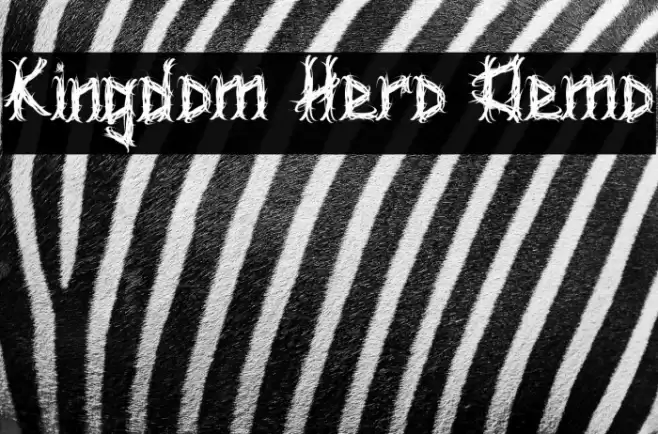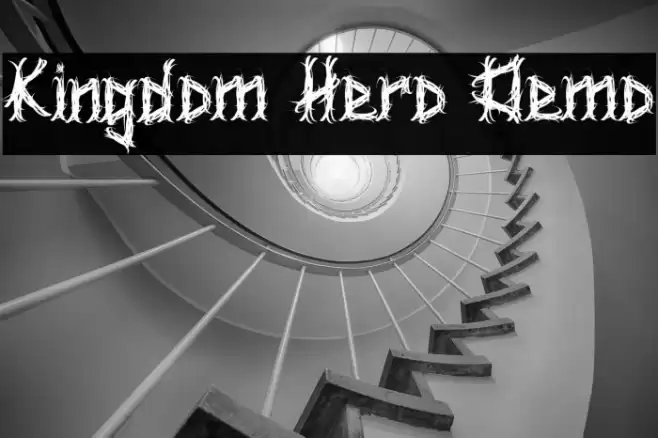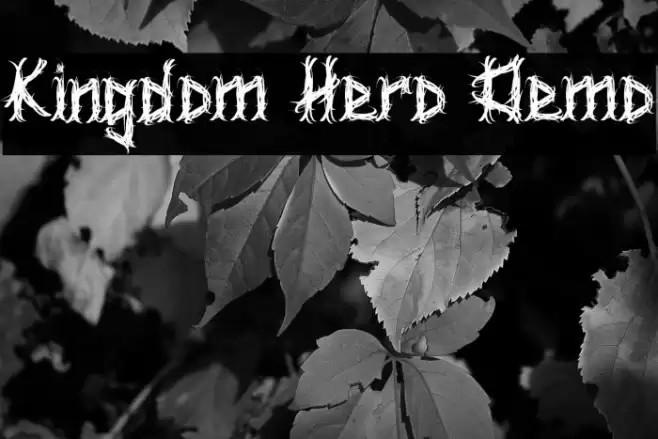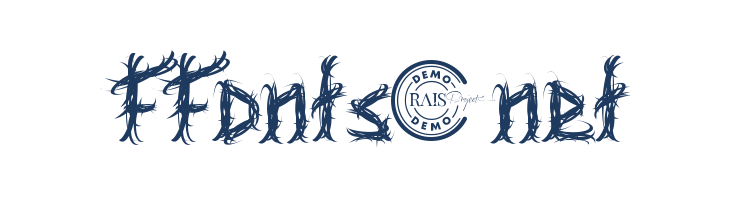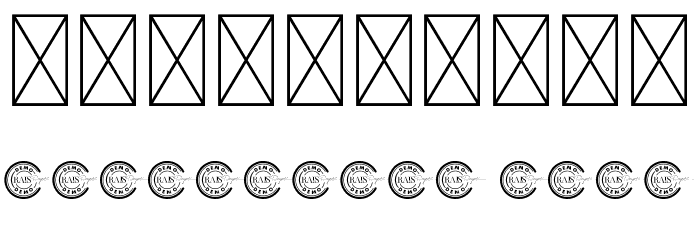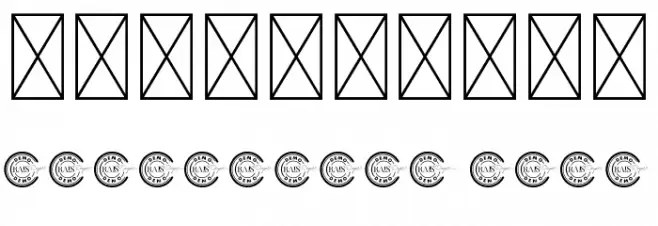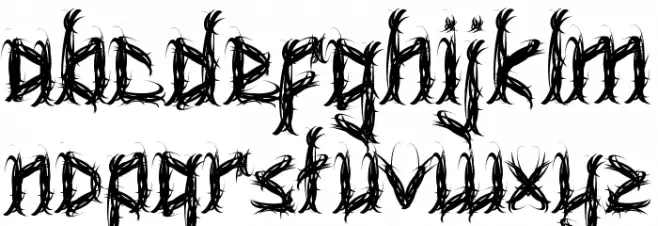
Kingdom Hero Demo Font
Kingdom Hero Demo Description
This font features an intricate and decorative style, reminiscent of thorny vines or barbed wire. Each character is uniquely crafted with sharp, angular lines and a sense of movement, giving it a dynamic and edgy appearance. The uppercase and lowercase letters maintain consistency in their elaborate design, while the numerals and special characters follow suit with the same ornate detailing. This font exudes a gothic and mysterious vibe, making it suitable for projects that require a dramatic and bold statement.
A decorative, thorny font with a gothic and edgy style from Uncategorized fonts.
- Proposed Projects: Ideal for horror-themed posters, album covers, video game titles, and any project requiring a dramatic and eye-catching typeface.
- Character Spacing: Tight
- Contrast: High
- Overall Style: Gothic, Decorative